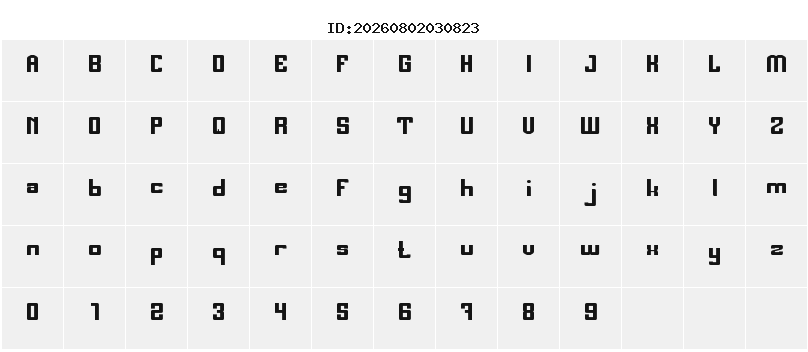
• Font Name: MY GOLDEN STAR
MY GOLDEN STAR.ttf is a modern, elegant sans-serif font designed for ultimate readability and visual harmony. Perfect for branding, headlines, web design, and print materials.